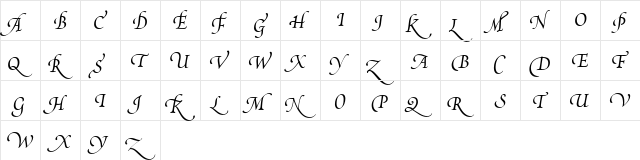
Poetica SuppSwashCapsIII Italic
Design Context for Poetica SuppSwashCapsIII Typeface
Poetica SuppSwashCapsIII brings a calligraphic fluidity to the page — its connecting strokes and expressive curves give it an unmistakably human quality.
Font Pairing: Combine Poetica SuppSwashCapsIII with a simple geometric sans for maximum contrast — the tension between flowing curves and clean structure is a classic typographic pairing.
Pro Tip: Pair Poetica SuppSwashCapsIII with a clean sans-serif for supporting text. The contrast between fluid script and geometric structure creates an elegant typographic hierarchy.